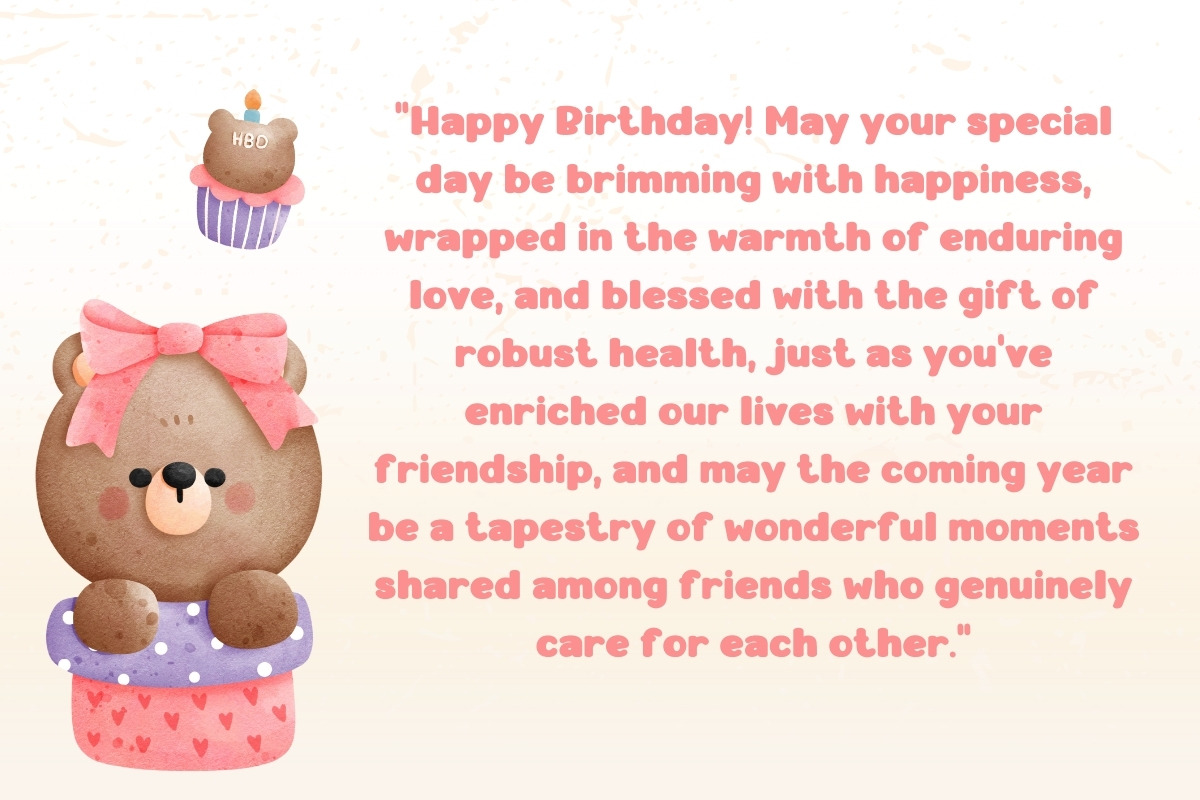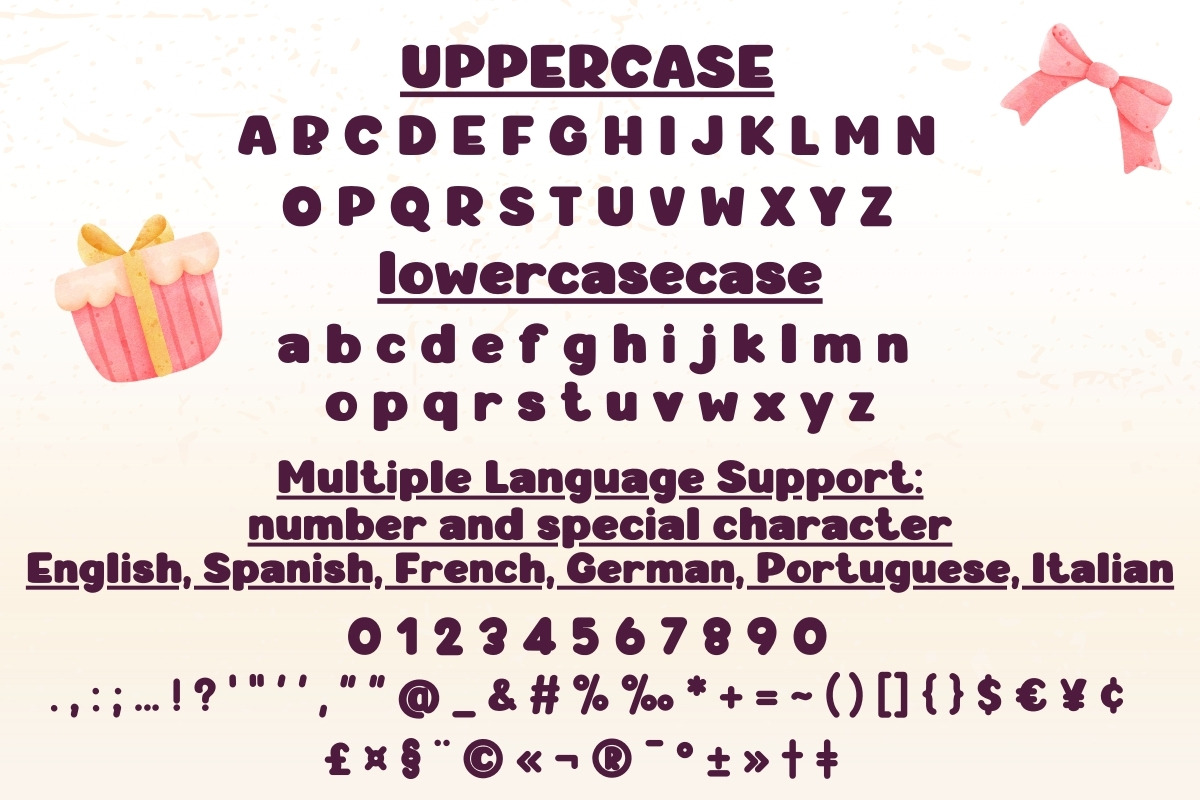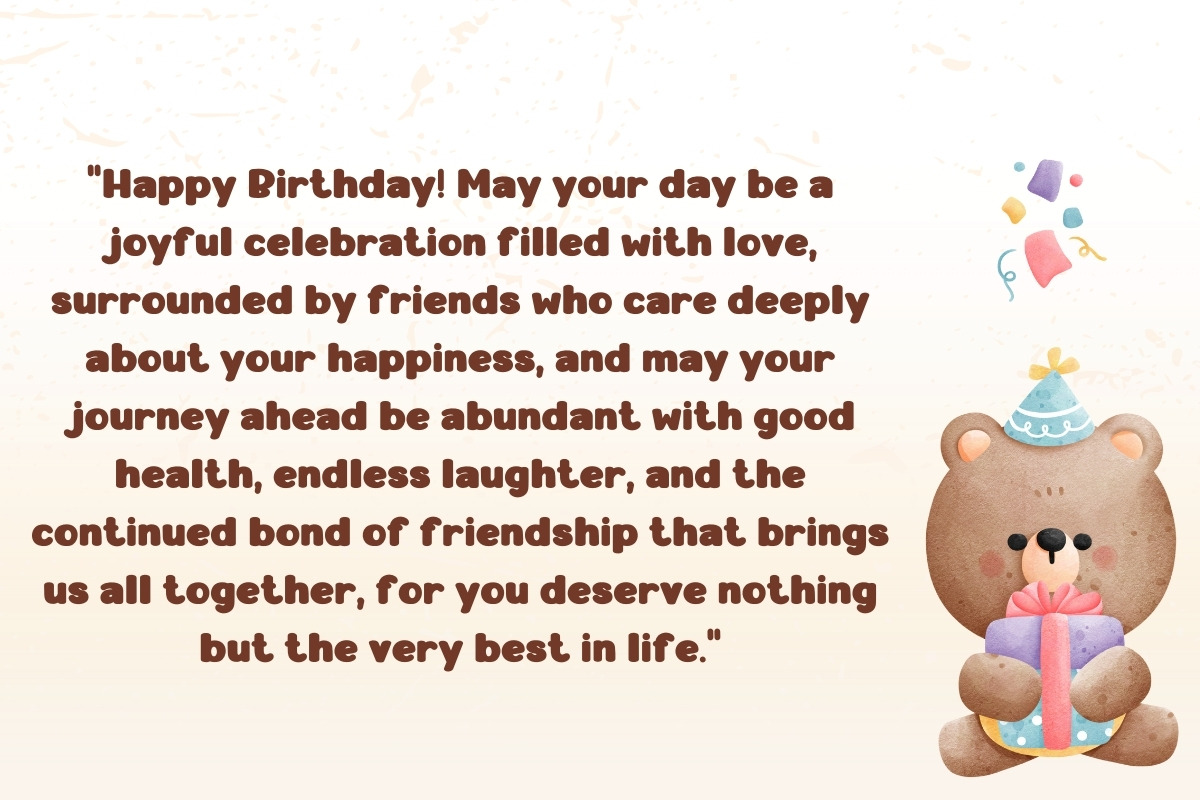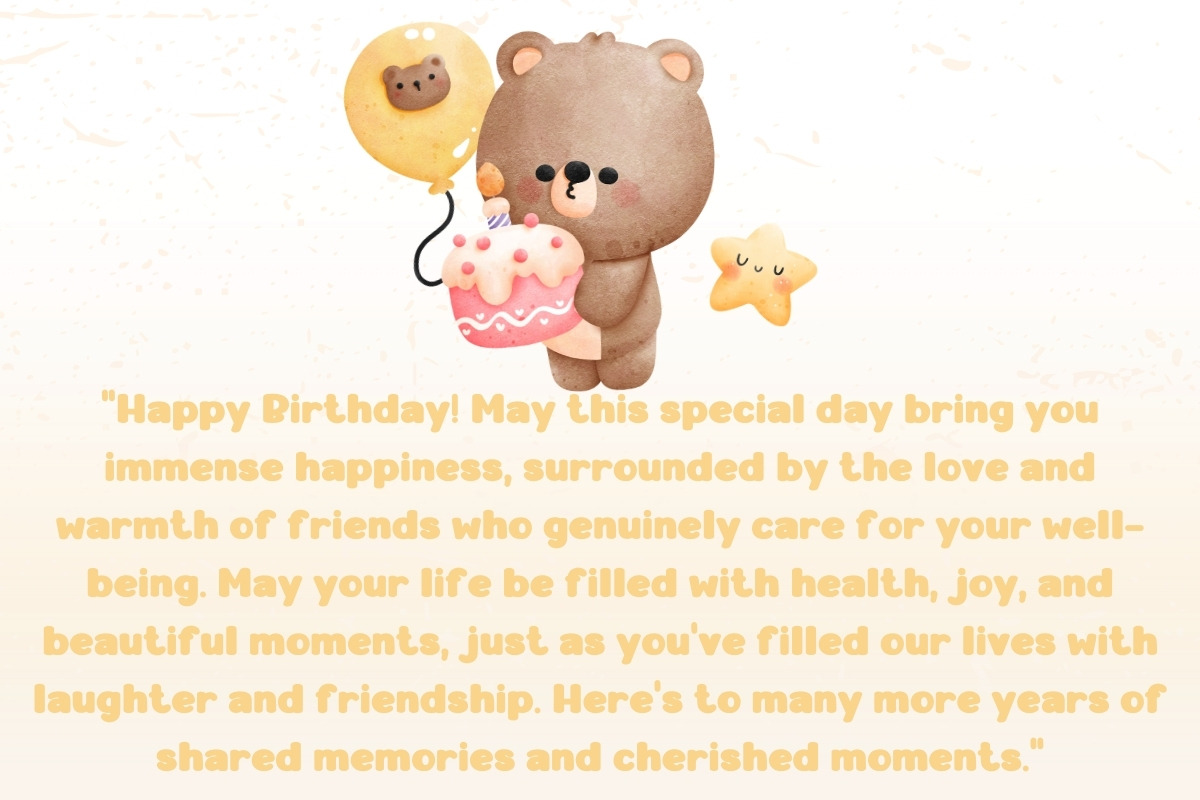
HAPPY BIRTHDAY - Handwritten Display
"HAPPY BIRTHDAY is an exquisite Script Font that belongs to the world of Display Fonts. With its charming, handcrafted design, this typeface captures the essence of celebration and joy, making it the perfect choice for adding a personal touch to birthday greetings, invitations, and festive projects. Its handwritten style infuses a warm and heartfelt sentiment into your design, ensuring that every message feels as special as the occasion itself."